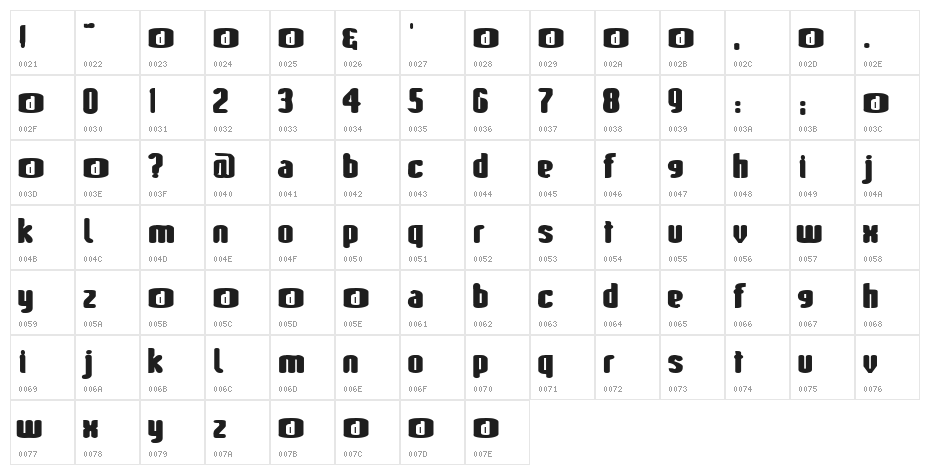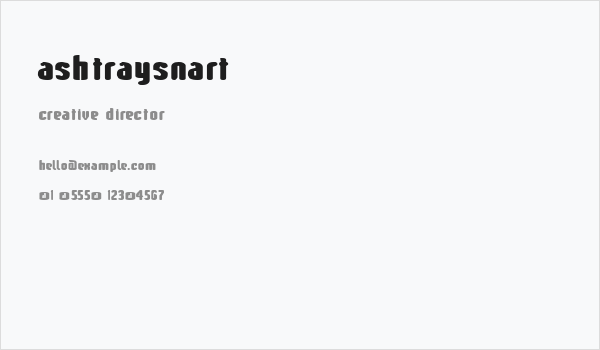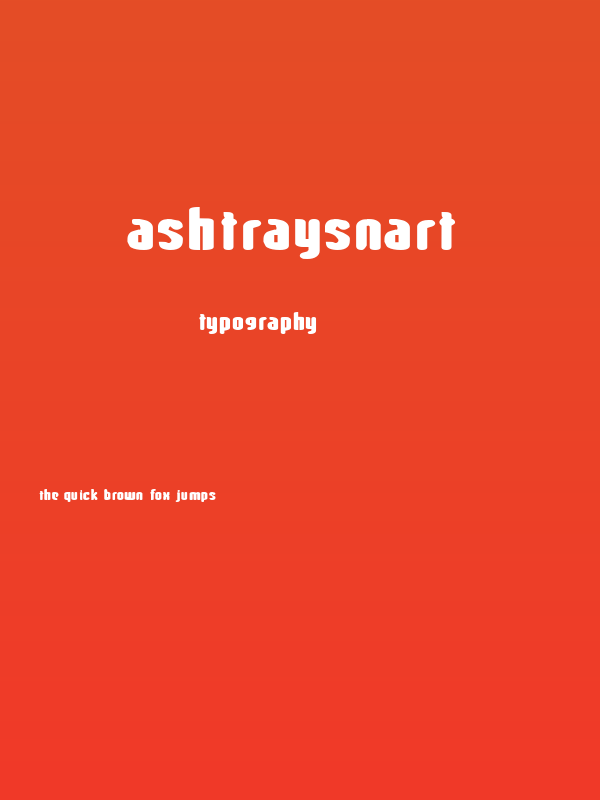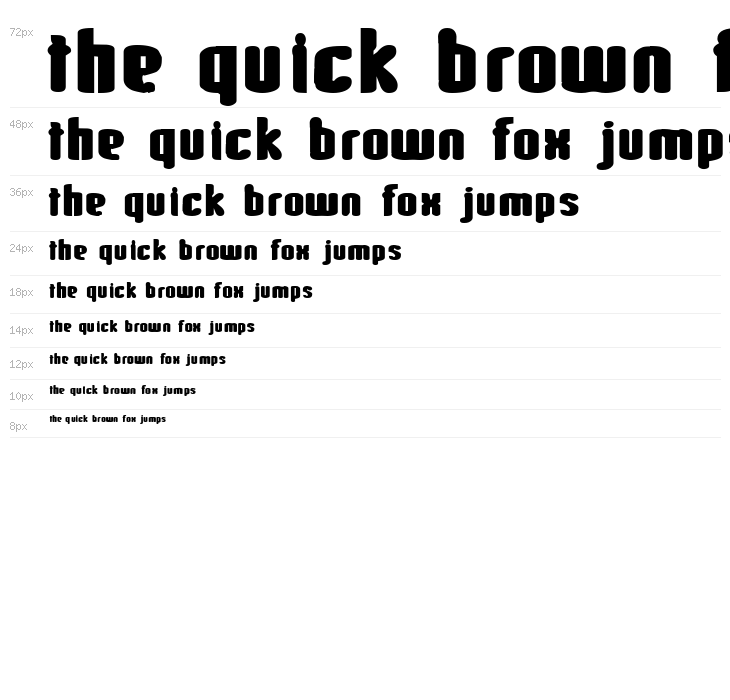
AshtraysnArt Font
AshtraysnArt Description
This font features a bold and robust design with thick, rounded strokes that give it a strong and impactful appearance. The characters are uniformly wide, creating a sense of stability and balance. The rounded edges soften the overall look, making it approachable while maintaining a modern aesthetic. The numerals and special characters are consistent with the letterforms, ensuring a cohesive visual style. This font is ideal for projects that require a bold statement or a modern touch.
| Proposed Projects | Ideal for branding, posters, headlines, and any design work that requires a strong visual impact. |